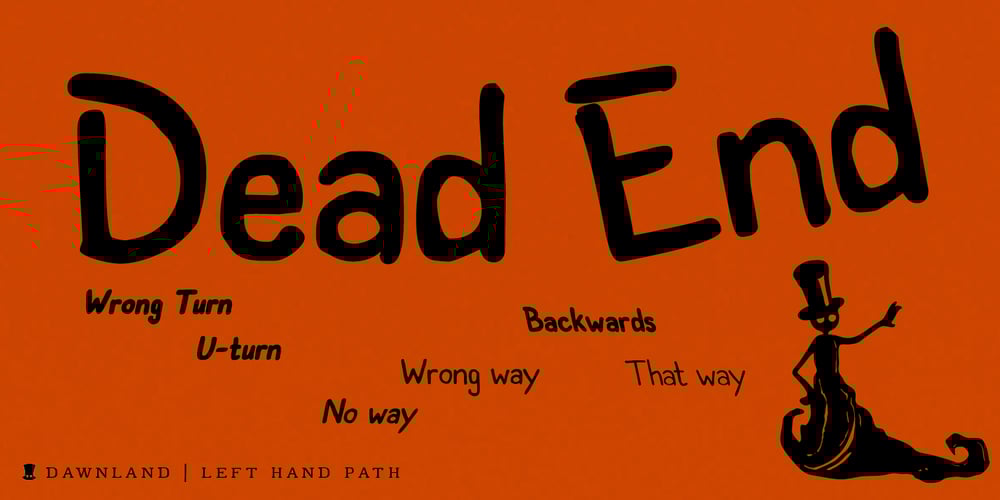
Left Hand Path Font Family was designed by Daniel Viberg and published by Dawnland. Left Hand Path contains 18 styles and family package options. Part casual but legible. Part strict but playful. All handwriting. With 6 weights ranging from thin to black and slanted and back-slanted variants it is easy to find a suiting style for your project. A perfect font for invitations, notes, signage, children’s books and comics Left hand Path comes with a full set of extended latin glyphs and ligatures for double letters for a varied handwritten look and feel.